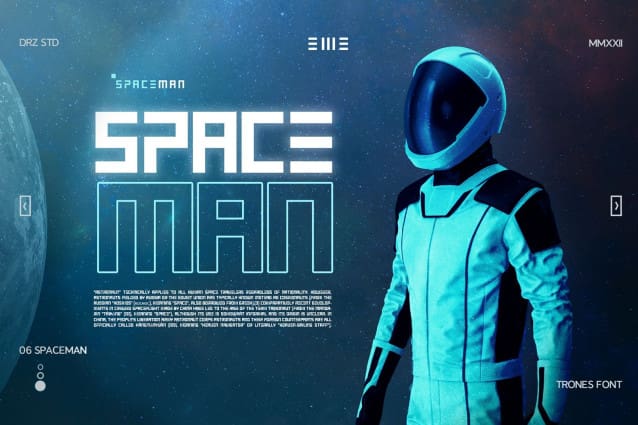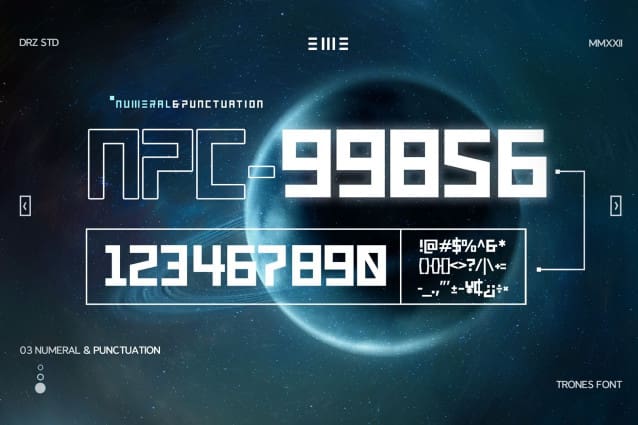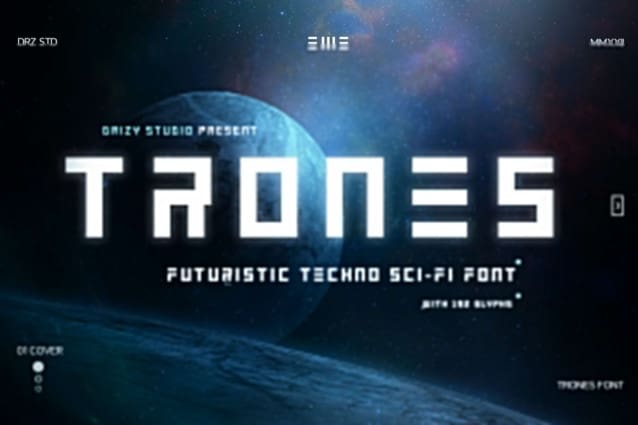
Trones Techno Font
Trones Techno Font is a Techno Sci-Fi Font from Drizy studio. Offering all the basic styles you will need especially Christmas theme project.